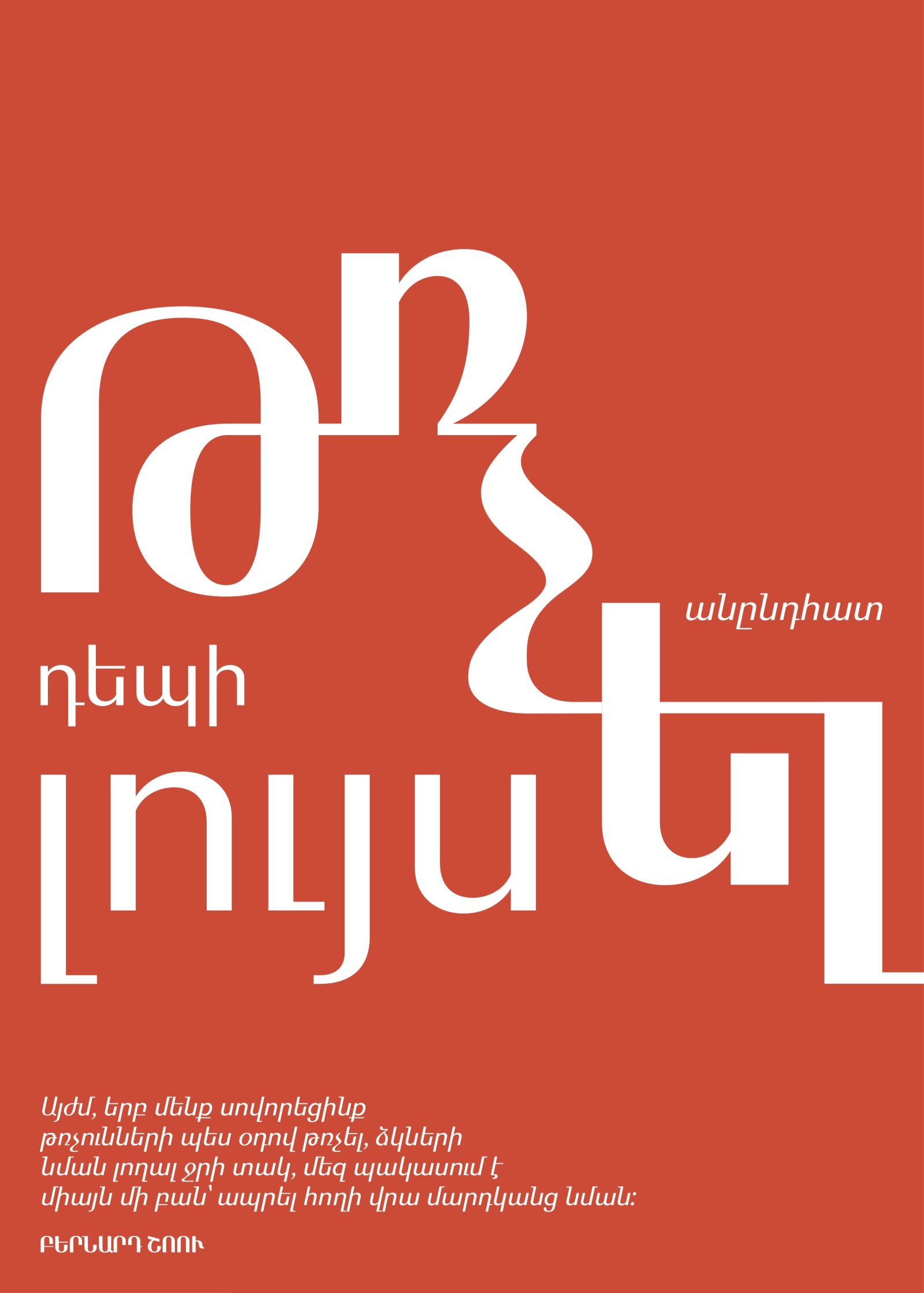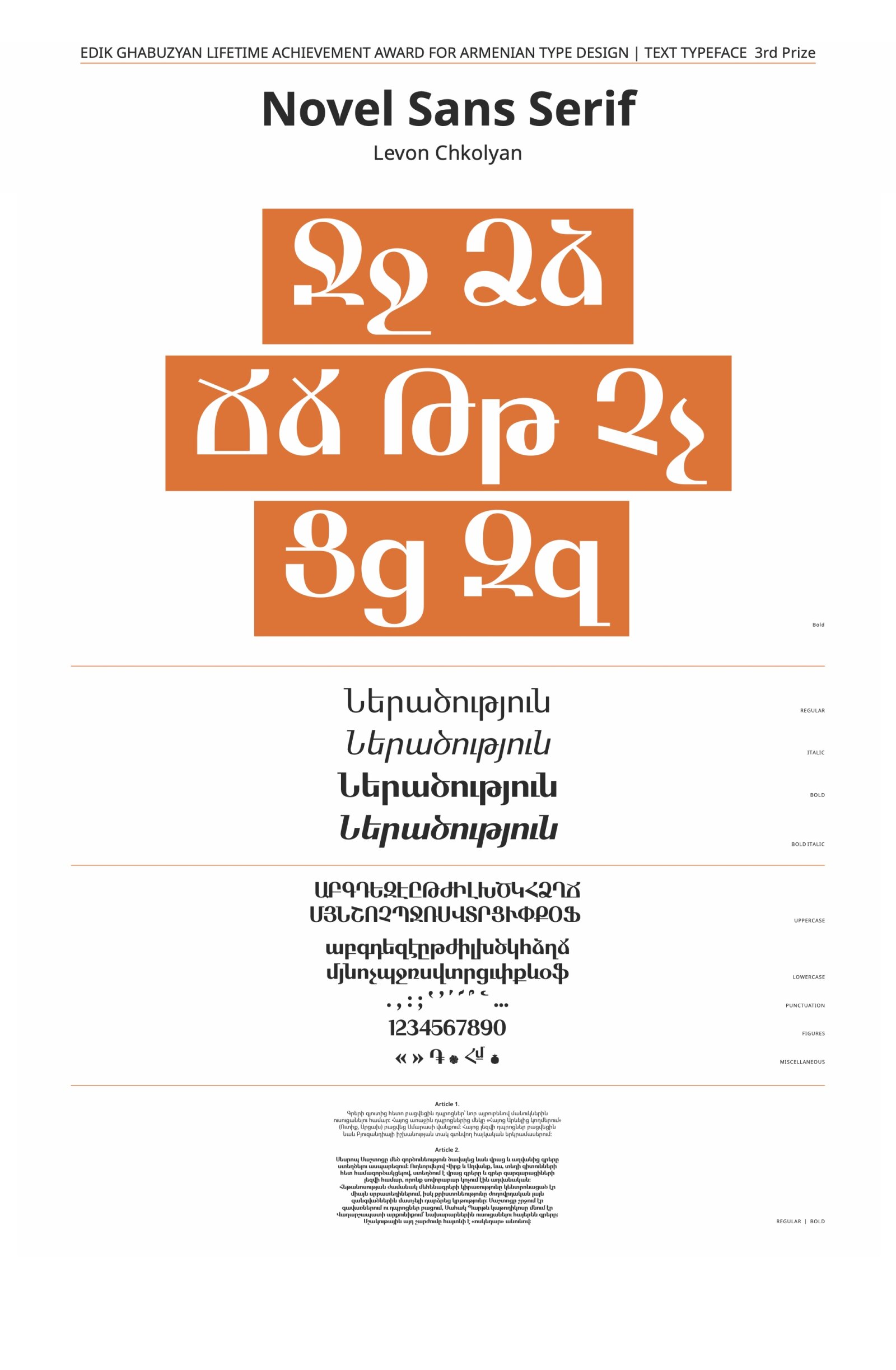
Novel Sans Serif
by Levon Chkolyan
Armenian Special – Ghabuzyan Lifetime Award
Novel Sans Serif is a combination of traditional and modern Armenian typefaces. It is a distinctive and clean sans-serif font that creates an emotional impact.